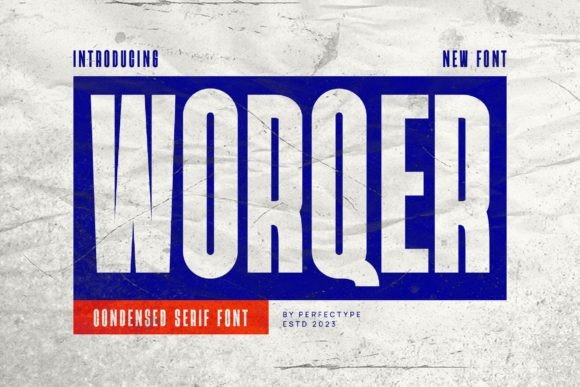
Prepare to be mesmerized by Worqer Font, the epitome of typographic artistry crafted by Perfectype. This sans serif masterpiece is not just a collection of letters; it's a symphony of curves and angles, meticulously orchestrated to evoke emotion and captivate your audience.
Worqer Font is a visual treat, a harmonious blend of classic and contemporary aesthetics. Its carefully adjusted proportions, subtle contours, and delicate contrasts create a captivating visual language that elevates your designs to new heights. Whether you're a seasoned graphic designer or just starting your creative journey, Worqer Font is your perfect companion.
With its versatile nature, Worqer Font effortlessly adapts to a myriad of projects, from sleek brochures to captivating videos, from vibrant advertising campaigns to timeless logos. Magazines, layout designs, posters, post templates, games - you name it, Worqer Font enhances it.
Worqer Font isn't just a font; it's an experience. Its meticulously crafted glyphs, like tiny works of art, dance across the screen, inviting your audience to immerse themselves in your visual narrative. It's a font that breathes life into your designs, transforming them from ordinary to extraordinary.